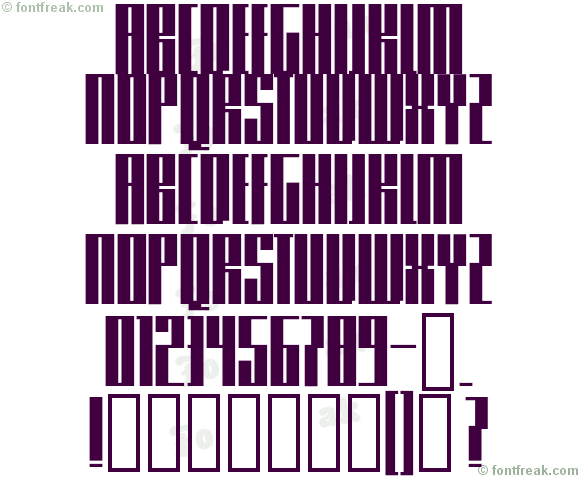
Knifer 400 Regular
About Knifer 400 Regular
Knifer 400 Regular, designed by Marko Jovanovac, is a striking display font that falls into the decorative category. Its unique visual style is characterized by bold, sharp, and angular letterforms that create a strong presence on any medium. The font features a consistent stroke weight, which enhances its legibility while maintaining an edgy aesthetic. The spacing between letters is well-balanced, allowing for a cohesive look that captures attention without overwhelming the viewer. This font's distinctive characteristics make it ideal for a variety of creative projects.
The best use cases for Knifer 400 Regular include movie posters, where its bold nature can convey excitement and drama; restaurant menus, where it can add a modern twist to traditional layouts; merchandise designs, particularly for urban or streetwear brands; and promotional materials for music events, where its edgy style can resonate with a youthful audience. Graphic designers and content creators will find this font particularly appealing for its versatility and ability to stand out in various applications.